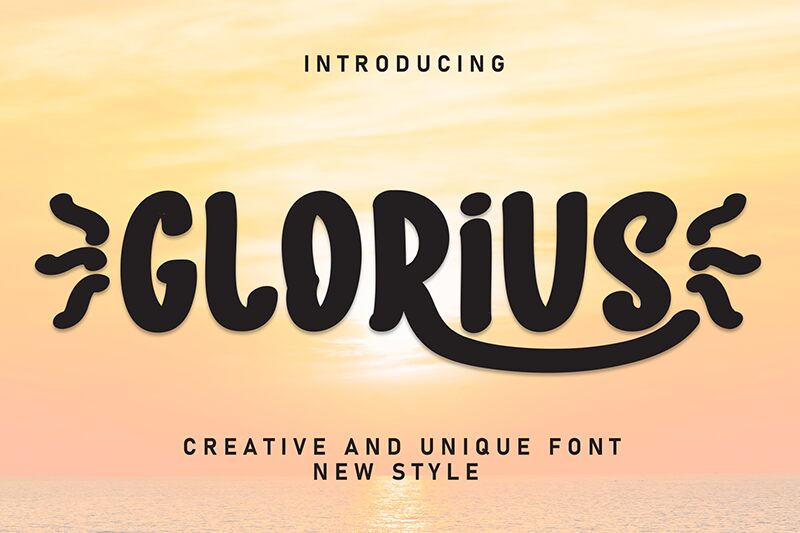
Glorius
Glorius font by Andi Moz is a retro-inspired brush font with a bold presence and artistic flair. Its expressive strokes create an eye-catching, vibrant mood that captivates audiences, making it perfect for designs that demand attention. The font’s unique style and character lend it a visual appeal that instantly enriches any project. Get started instantly with this free display font.